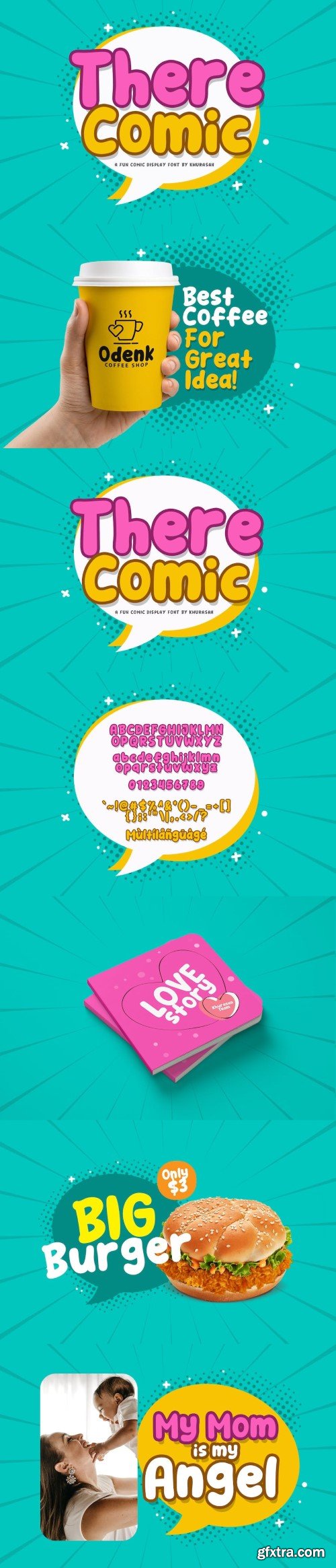
Introducing, There Comic font a fun display typeface with cheerful theme for your fun project. There Comic font suitable for logo, branding, greeting card, poster and any design that you create.